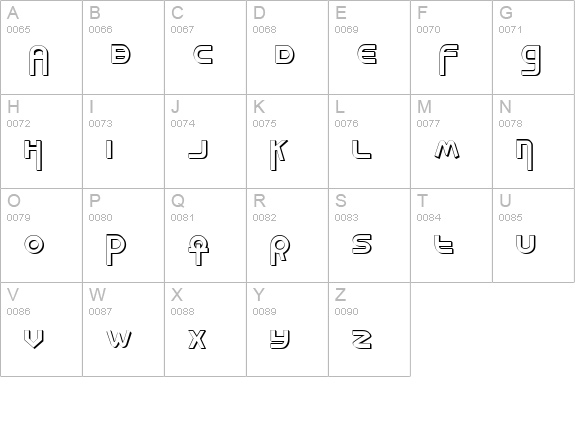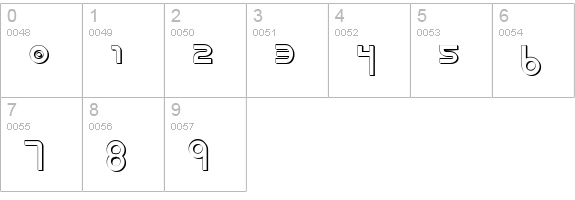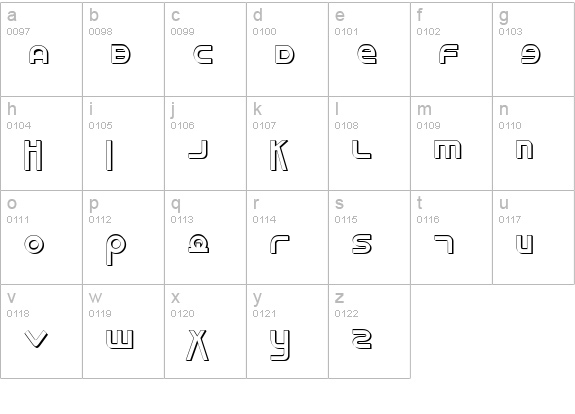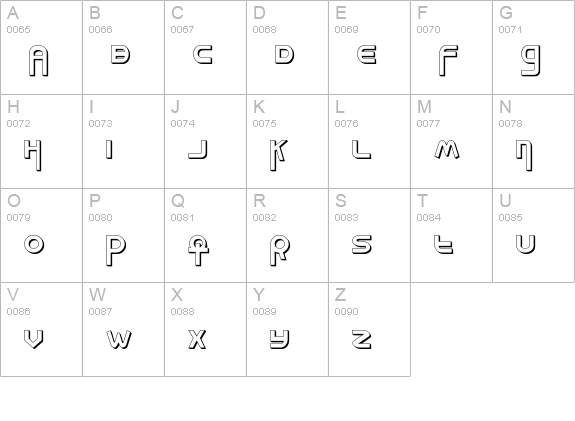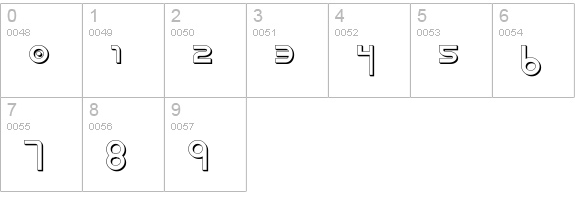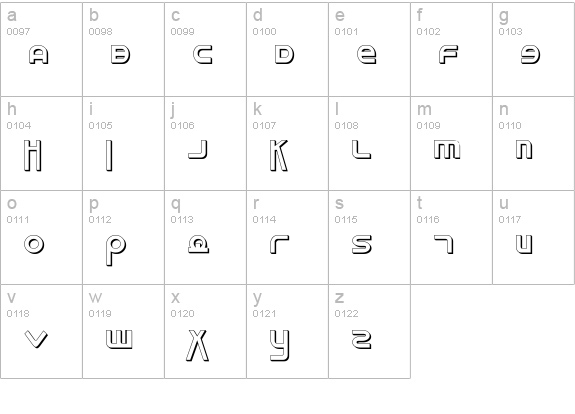
Milk Bar Shadow Font Details
Milk Bar Shadow font is a charming and playful typeface that exudes a sense of whimsy and nostalgia. Its unique shadow effect adds depth and character to any design, making it perfect for eye-catching headlines, branding projects, and creative displays. This free font captures the essence of retro style with a modern twist, making it a versatile choice for a wide range of design applications. Whether you're working on a vintage-inspired poster, a fun social media graphic, or a playful packaging design, Milk Bar Shadow font is sure to make a statement. Best of all, Milk Bar Shadow font is freely available to download at FontsMarket.com, allowing you to easily incorporate this delightful typeface into your projects without any cost. Don't miss out on the opportunity to add a touch of whimsical charm to your designs with Milk Bar Shadow font. Download it today and let your creativity shine!